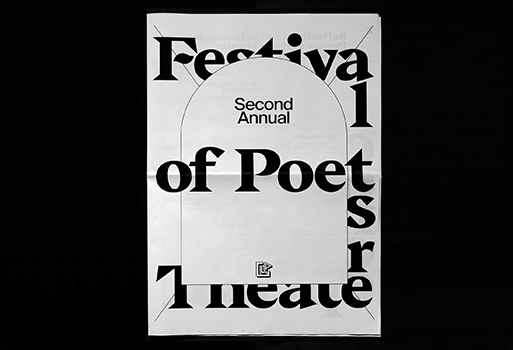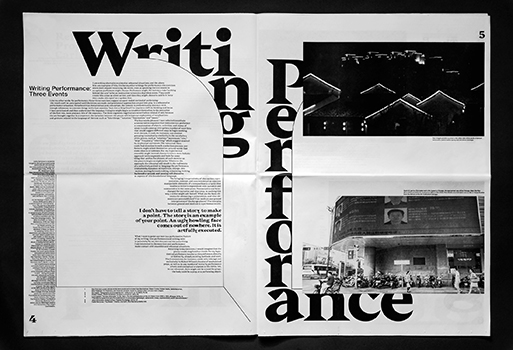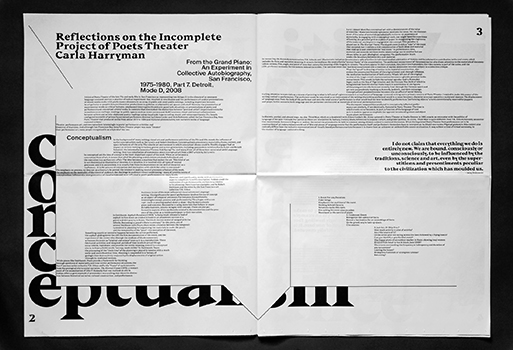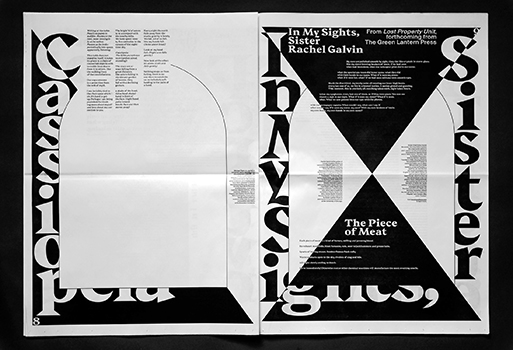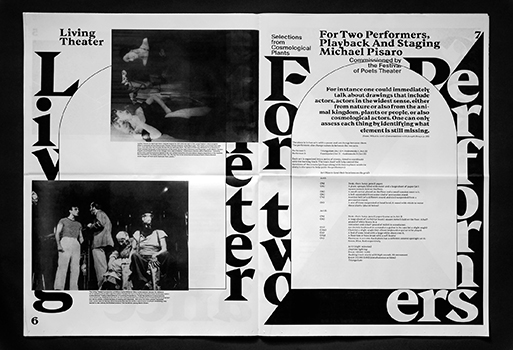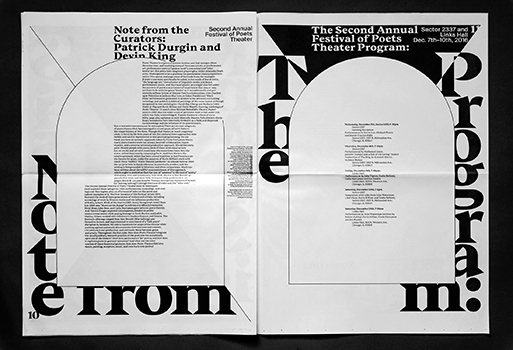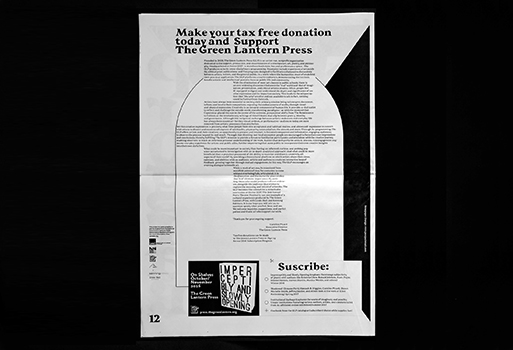
Enter Pouya Ahmadi’s black and white poetic newspaper with grace
We are hardcore fans of Pouya Ahmadi, this award-winning graphic designer and art director based in Chicago who is having a great time bringing East and West together under his guidance.
Working in the cultural and social field, collaborating with art/culture institutions and small businesses developing brand identities, printed matter, and publications Ahmadi’s newspaper for Festival of Poets Theatre is a beautiful, bold, black and white project which brings the words into the limelight.
“Poets theater is a genre of porous borders, one that emerges about the same time, and involving many of the same artists, as performance art, performance poetry (“spoken word”), conceptual and “intermedia” art. But poets have long been playwrights, either primarily (Sophocles, Shakespeare) or as a platform for postmodern literary experimentation (the operas and page plays of Gertrude Stein, for example)” writes the Swiss-educated Chicago-based graphic designer, writer, and educator.